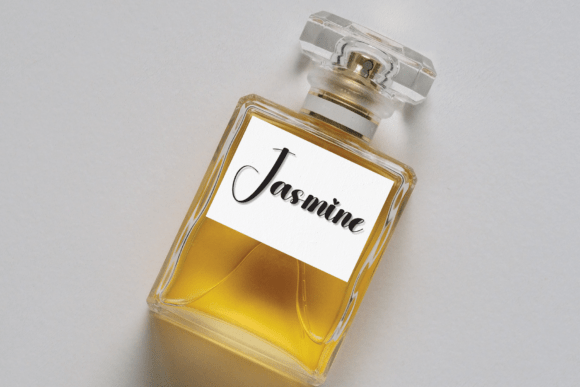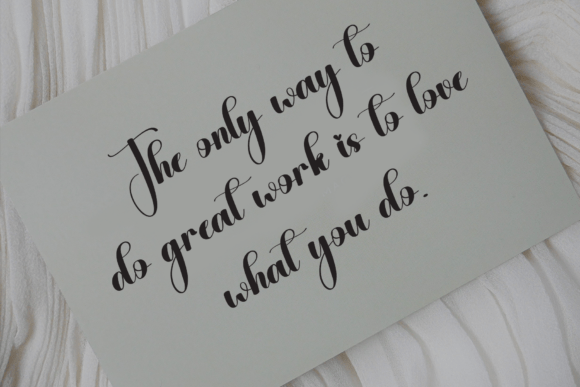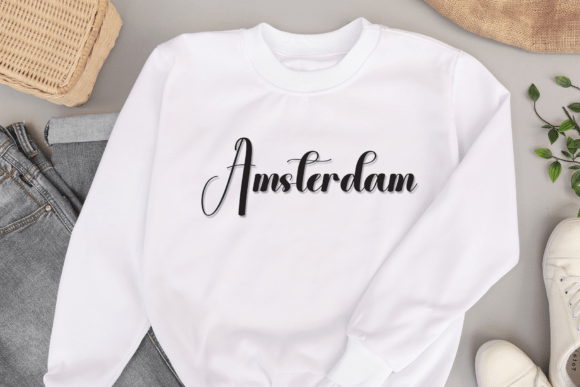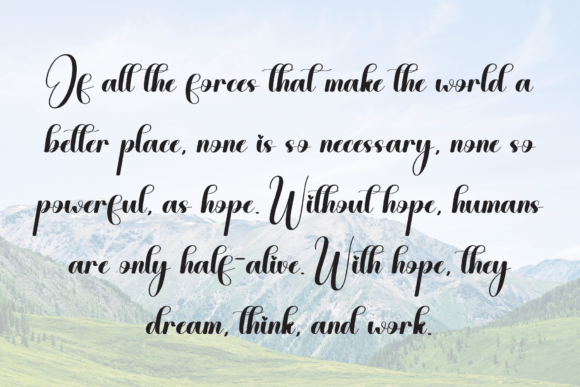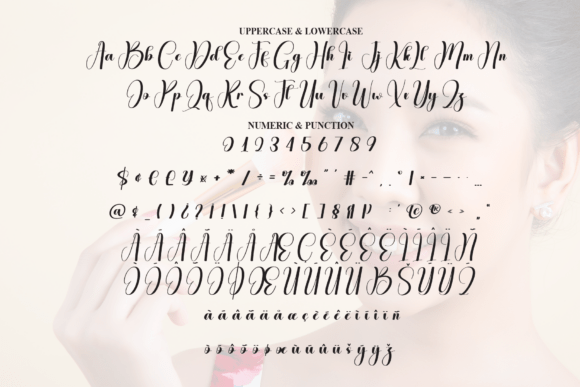
Delighter Font: The Sweetest Handwritten Script Font for Your Design Projects
Are you looking for a font that can add a touch of warmth and friendliness to your design projects? Look no further than Delighter Font, a charming handwritten script font that exudes sweetness and playfulness. With its delightful and endearing nature, Delighter Font is perfect for wedding invitations, personalized cards, and any design project that calls for a sprinkle of fun.
A Font that Casts a Spell of Joy
Delighter Font is more than just a font – it’s an experience. Its playful and whimsical nature has the power to transform your design projects into delightful and heartwarming creations that will leave a lasting impression on your audience. Whether you’re a designer, crafter, or DIY enthusiast, Delighter Font is the perfect tool to add a personal touch to your projects.
Perfect for Wedding Invitations and Personalized Cards
Wedding invitations and personalized cards are special occasions that call for a font that’s both elegant and playful. Delighter Font fits the bill perfectly, adding a touch of sweetness and romance to your designs. Its handwritten script style gives your invitations and cards a personal and intimate feel, making them truly unforgettable.
Endless Design Possibilities with Delighter Font
Delighter Font is versatile and can be used for a wide range of design projects, including:
- Personalized cards and gift tags
- DIY crafts and scrapbooking
What Makes Delighter Font So Special?
Delighter Font has several features that make it a standout font:
- Handwritten script style: Delighter Font has a beautiful, handwritten script style that’s both elegant and playful.
- Unique character set: The font includes a unique character set with swashes, ligatures, and alternate characters, giving you endless design possibilities.
- Easy to read: Despite its playful nature, Delighter Font is easy to read, making it perfect for body text and headlines.
Get Ready to Fall in Love with Delighter Font
In conclusion, Delighter Font is a sweet and charming handwritten script font that’s perfect for designers, crafters, and DIY enthusiasts. Its playful and whimsical nature makes it a great addition to any design project, from wedding invitations and personalized cards to social media graphics and branding design. With its unique character set, ease of use, and compatibility with design software, Delighter Font is sure to become your go-to font for all your design needs.